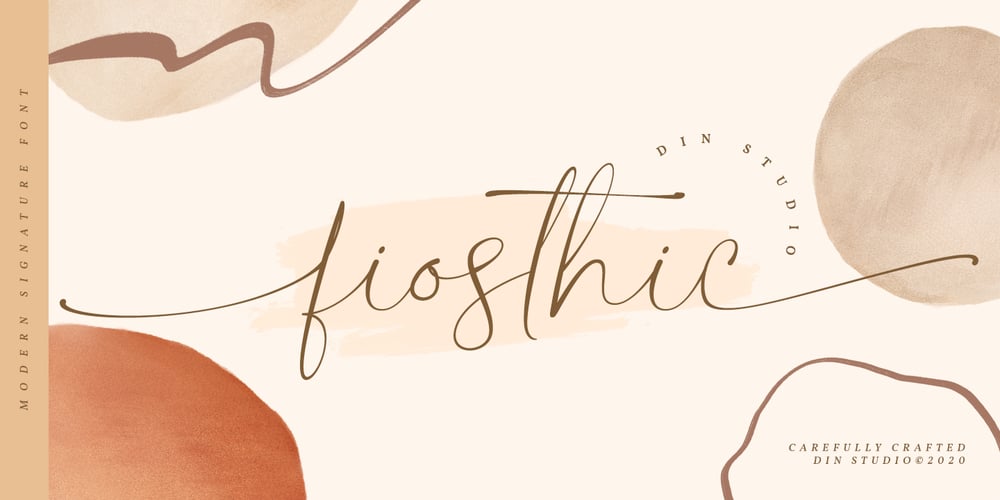
Fiosthic Font Family was designed by Donis Miftahudin and published by Din Studio. Fiosthic contains 1 styles and family package options. Fiosthic is a modern signature font with natural and handwritten style. It brings a elegant and attractive typeface. Made for any professional project branding. It is the best for logos, branding, wedding and quotes.Features: Stylistic Set Beautiful Ligatures Multilingual Support PUA Encoded Numerals and Punctuation Thank you for downloading premium fonts from Din Studio